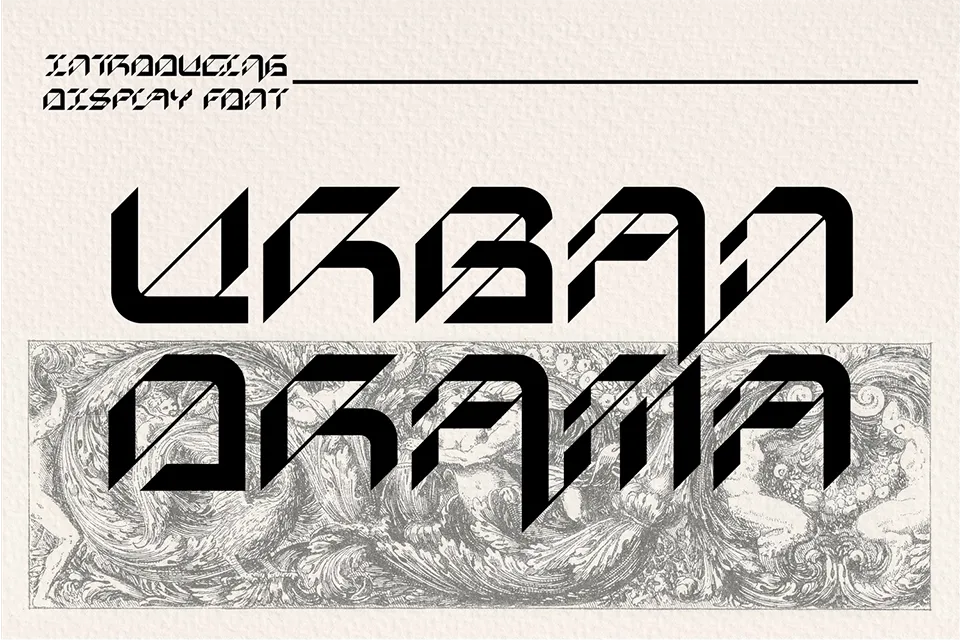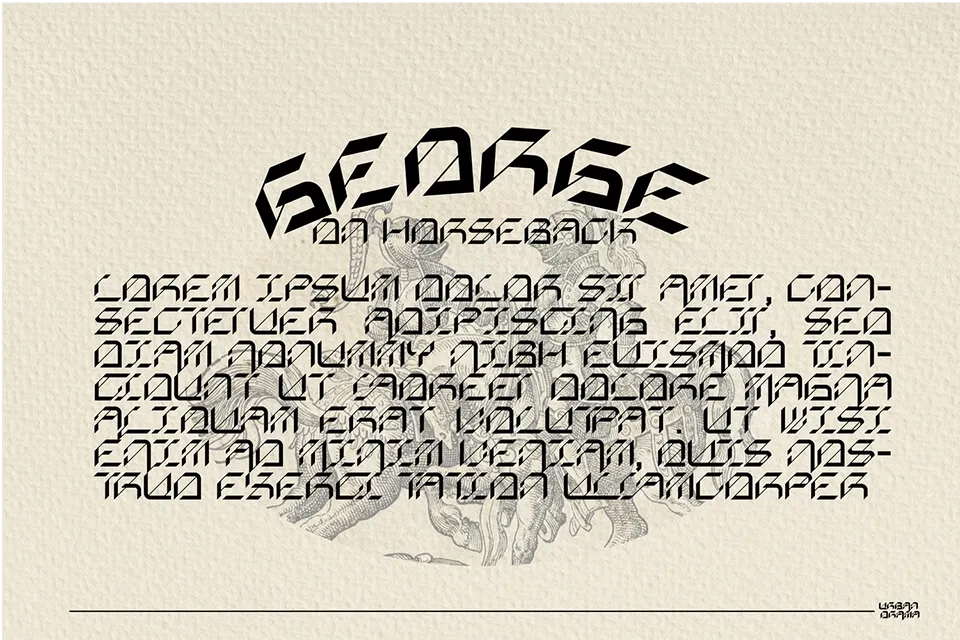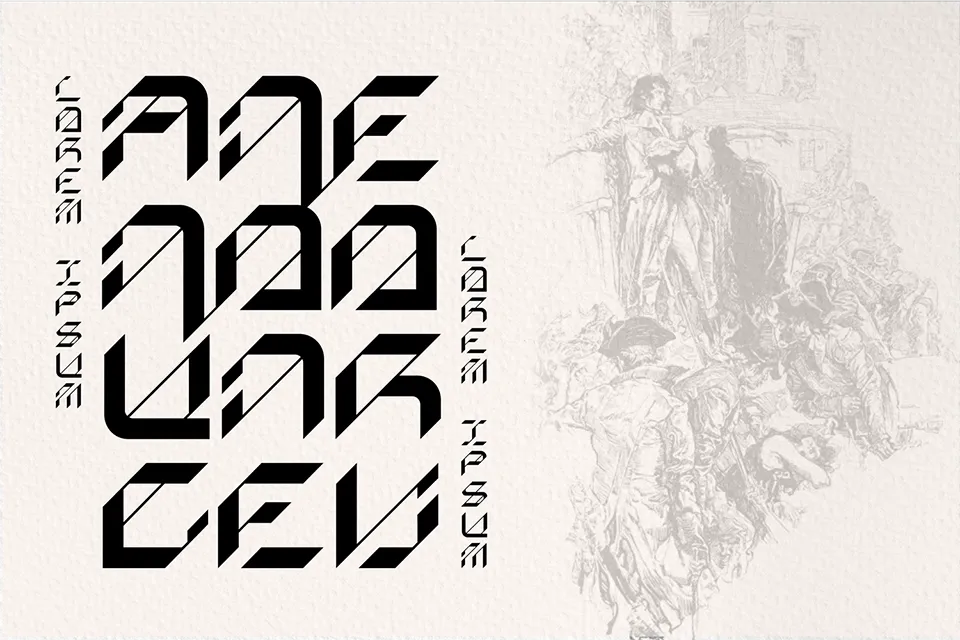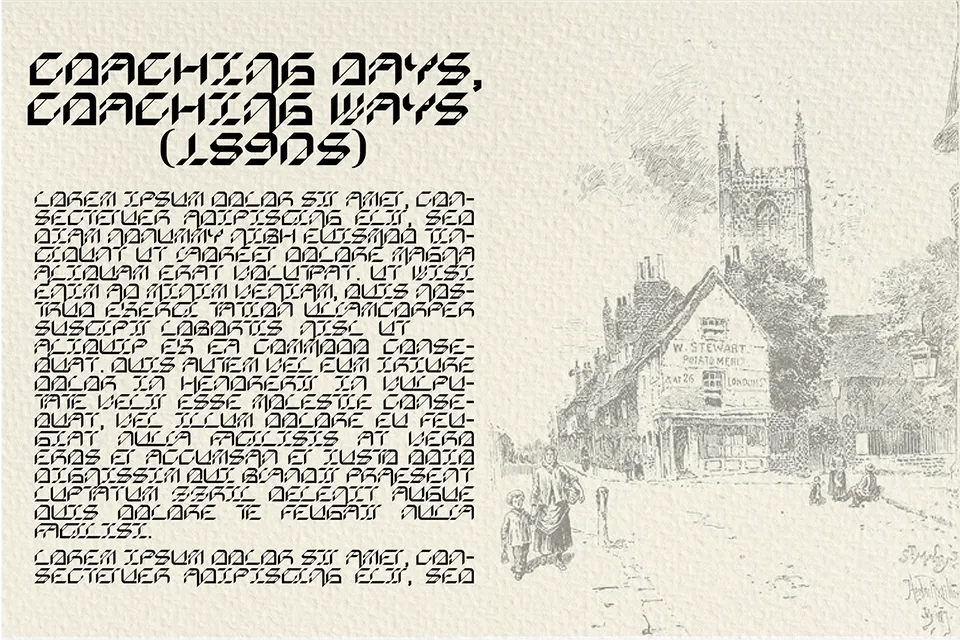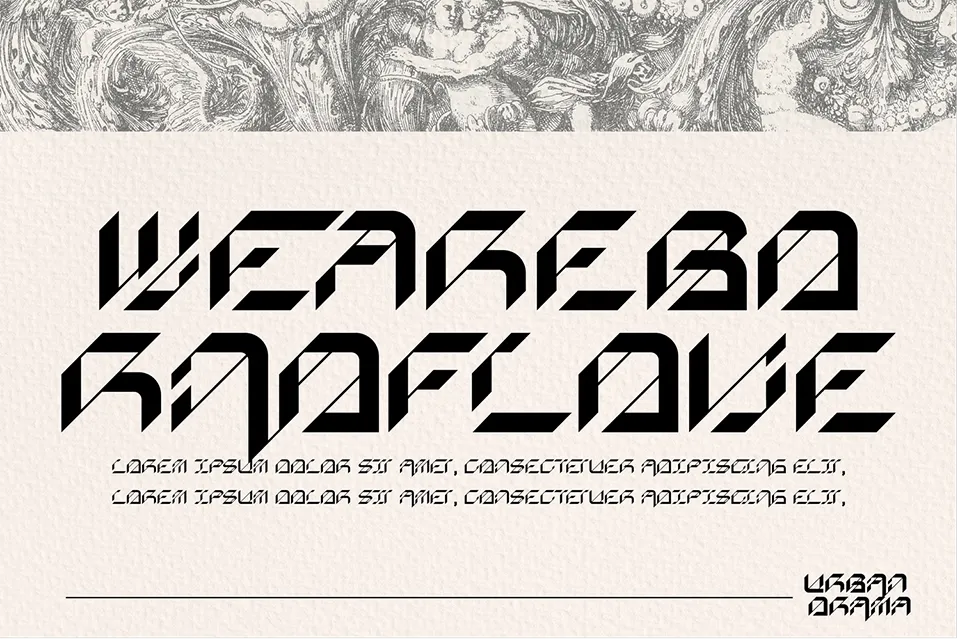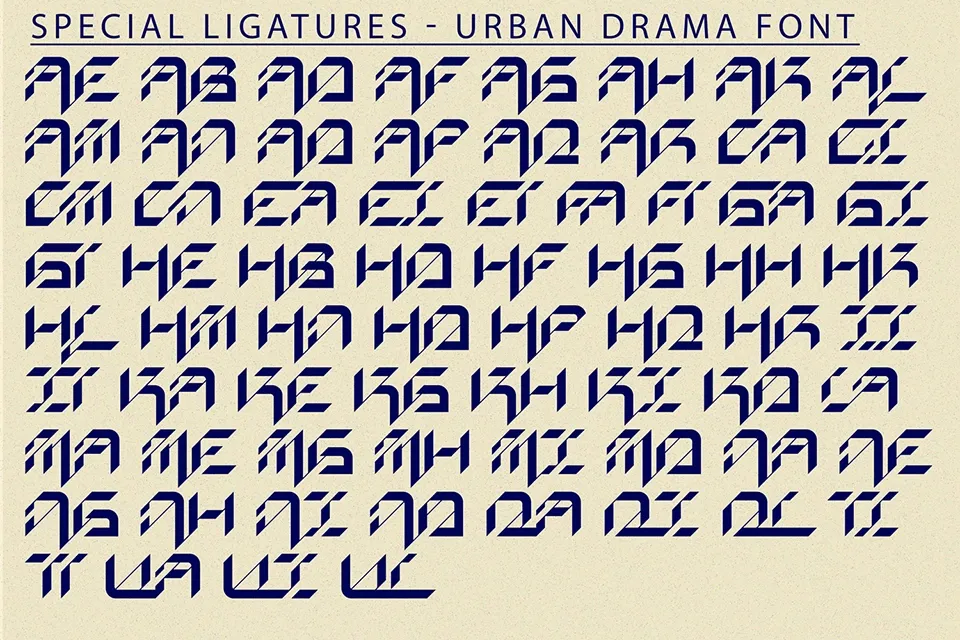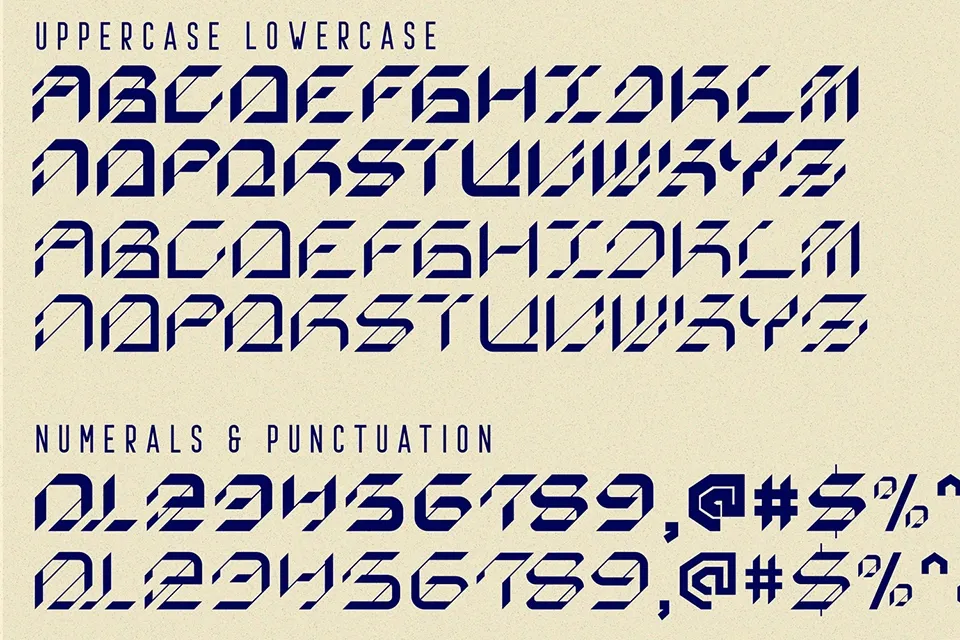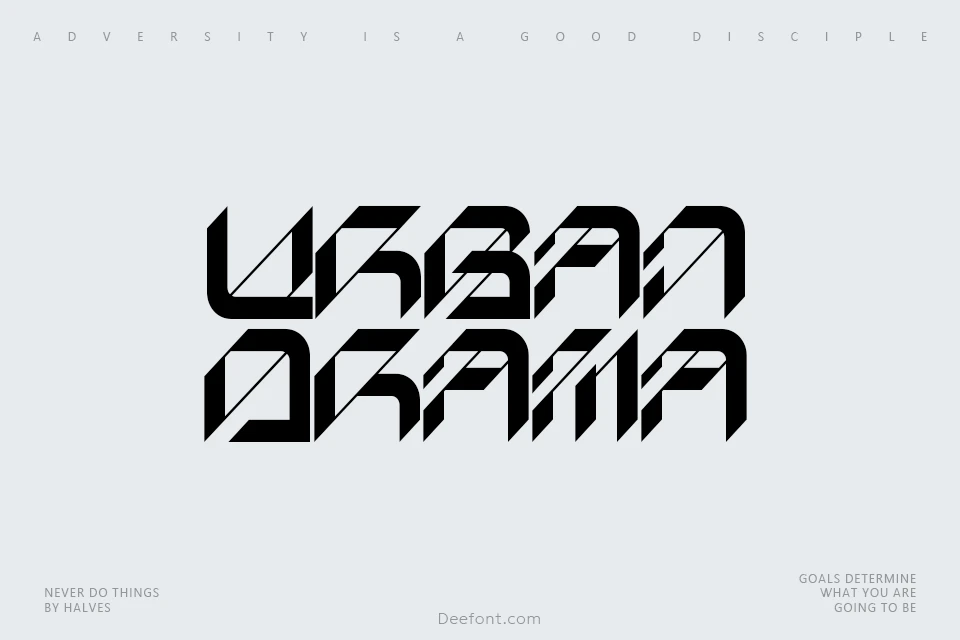
Urban Drama Font
Urban Drama Font is a bold and futuristic display typeface that commands attention with its sharp, angular letterforms and modern aesthetic. Inspired by the dynamic energy of urban environments, this font is perfect for projects that require a striking and edgy look. Its geometric structure and unique design make it ideal for posters, headlines, branding, and digital artwork. Urban Drama Font captures the essence of contemporary creativity, blending innovation with a dramatic flair. Whether used for street-inspired designs or futuristic themes, this font adds a powerful and distinctive character to your visuals, ensuring they stand out with confidence and style.